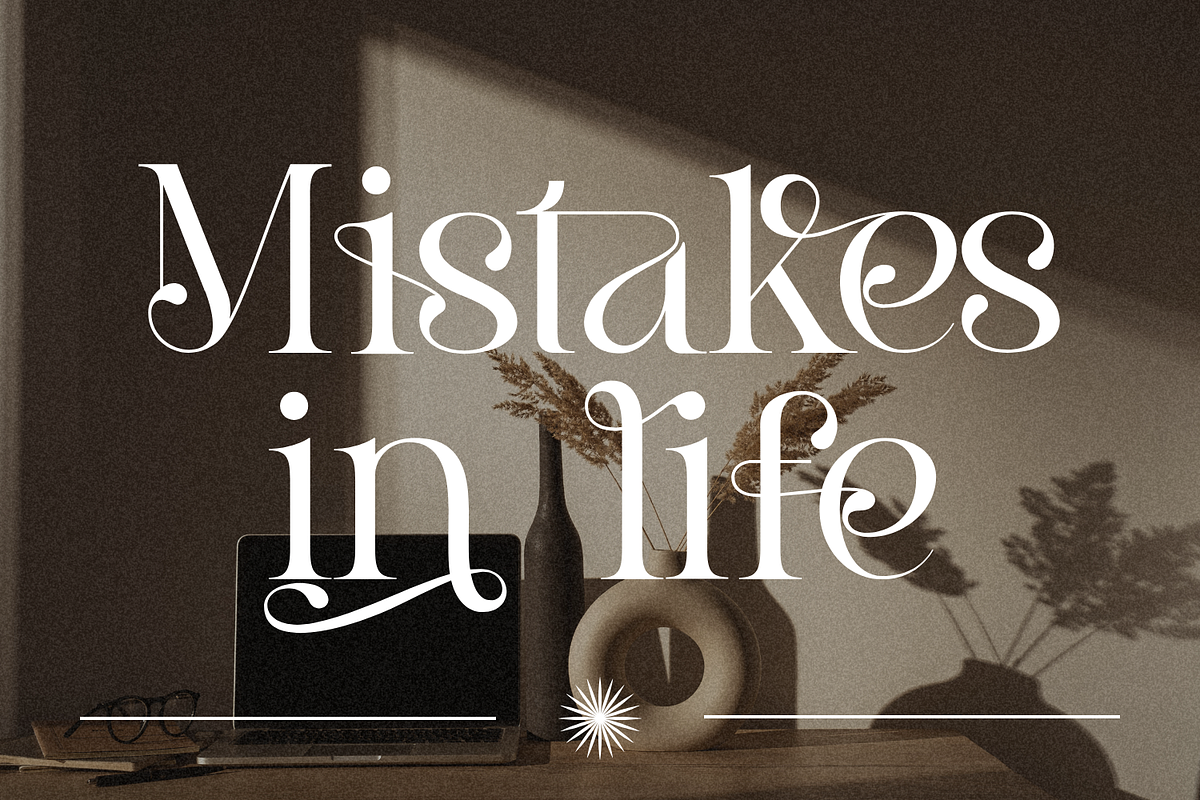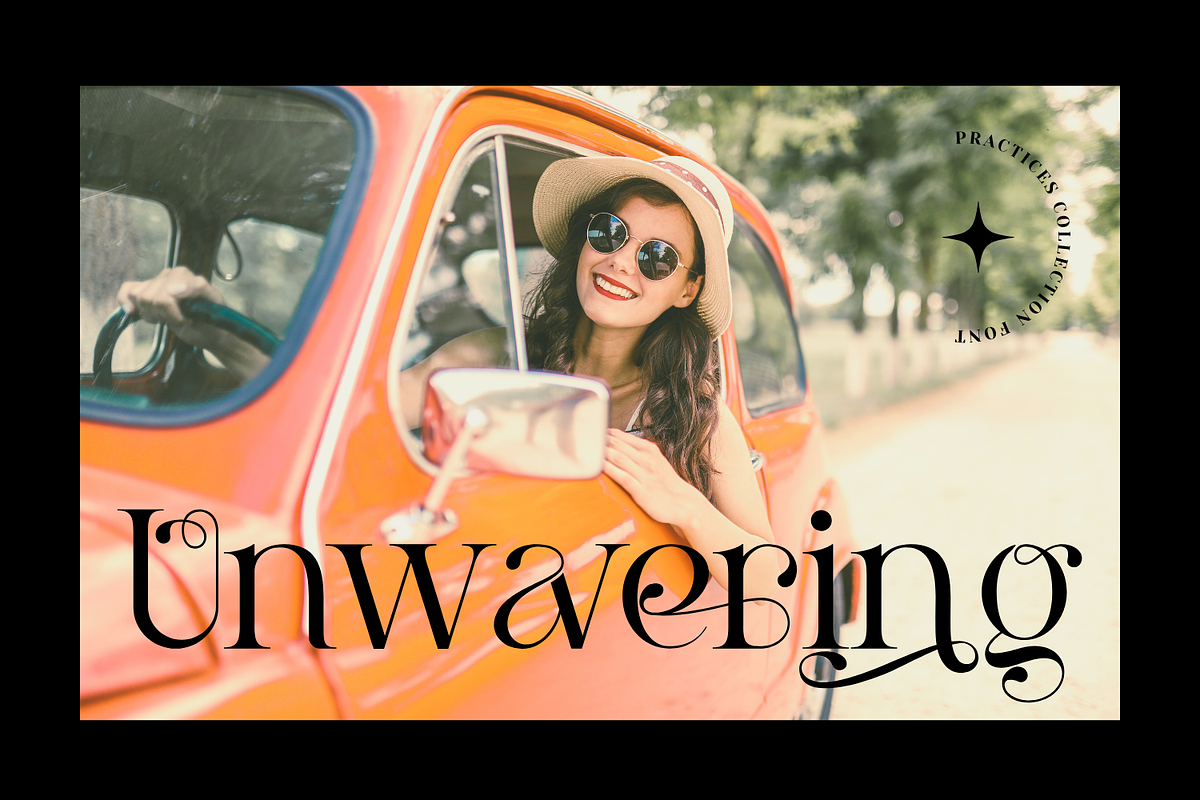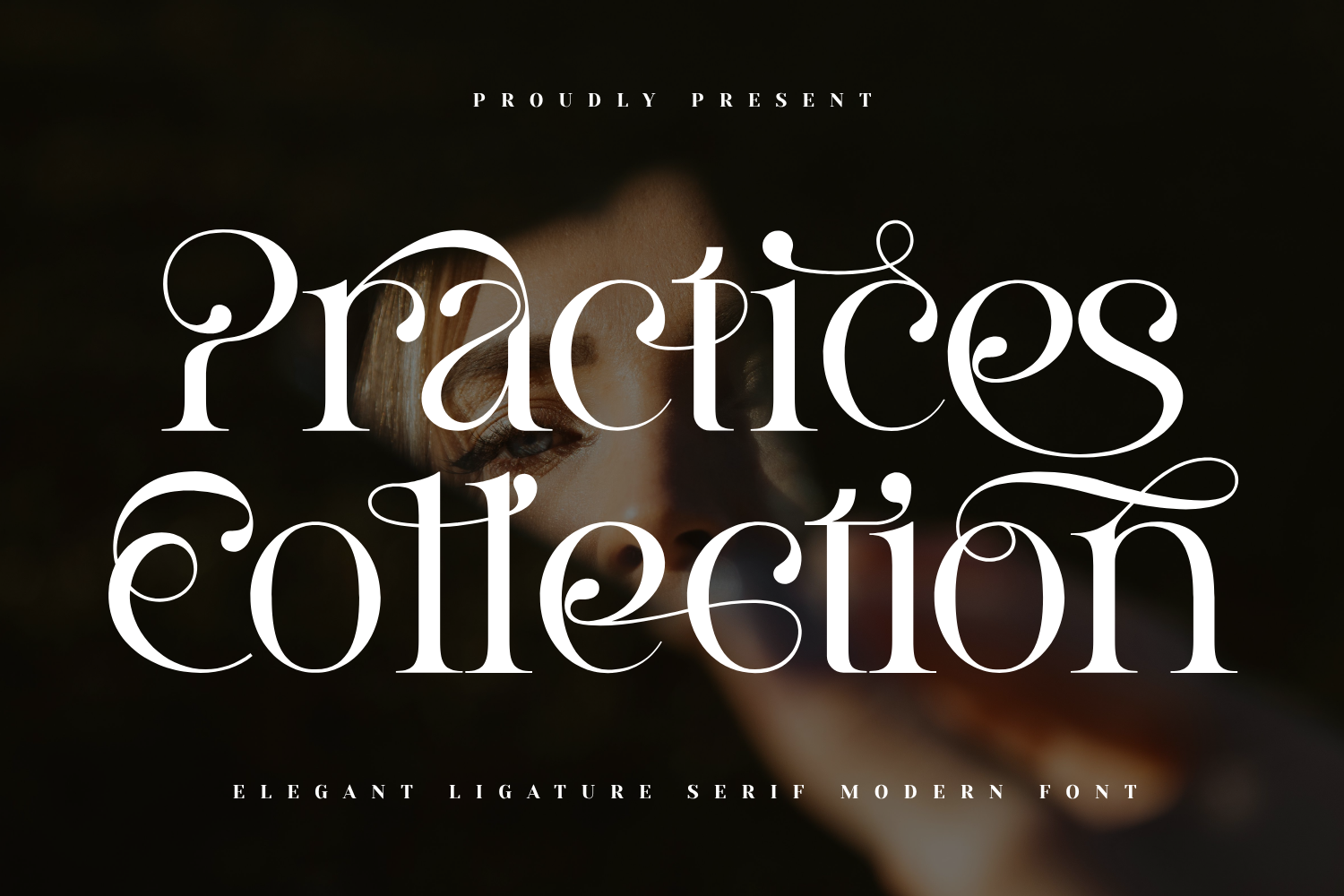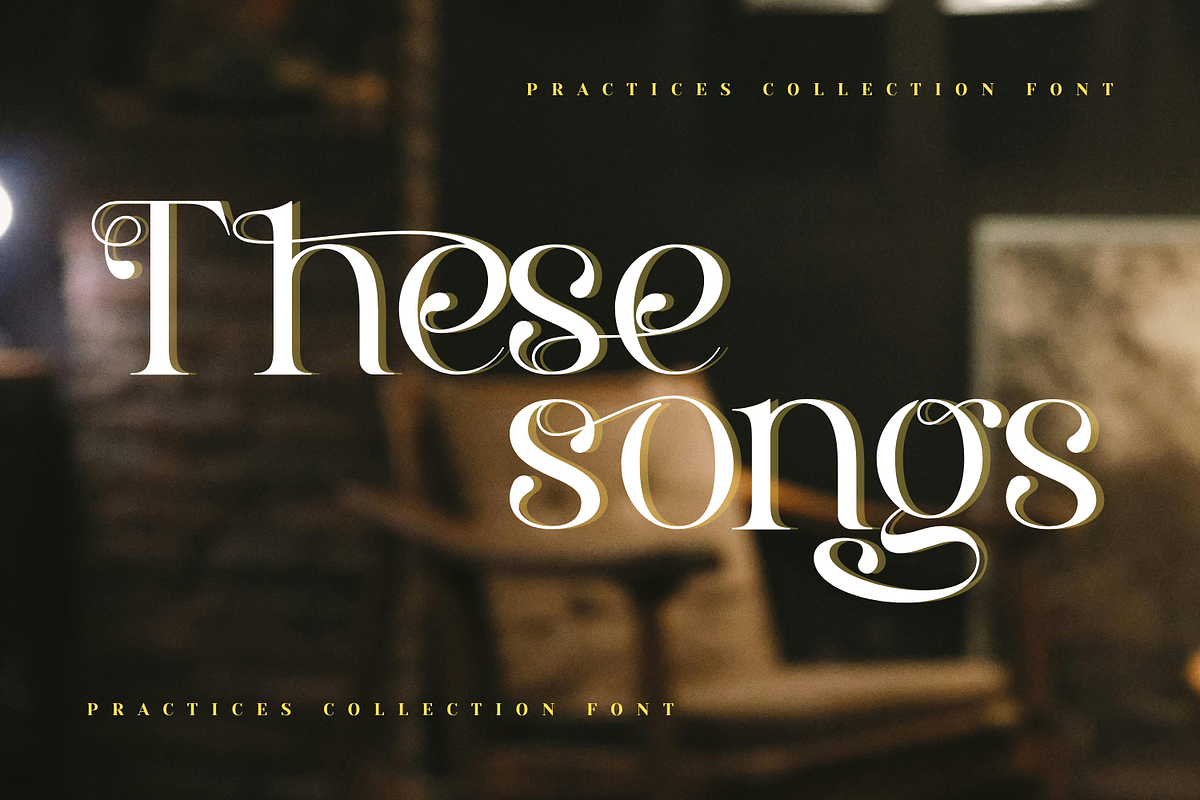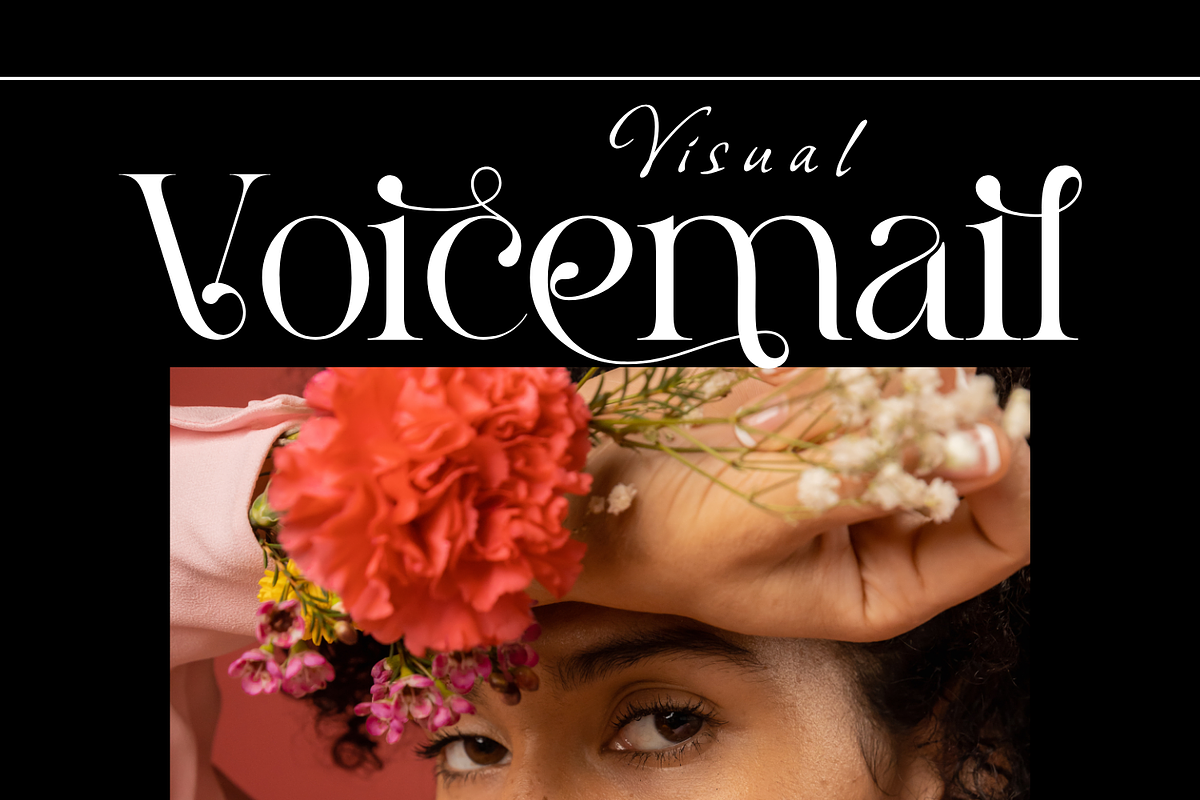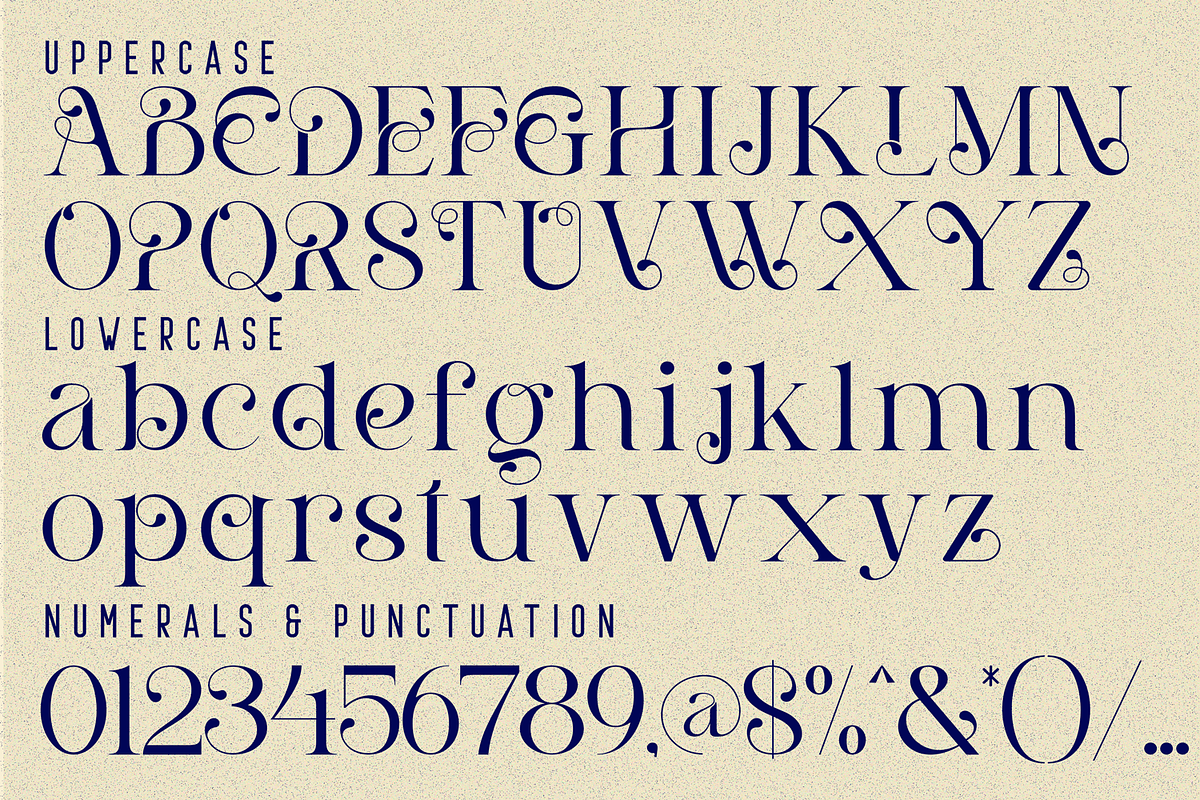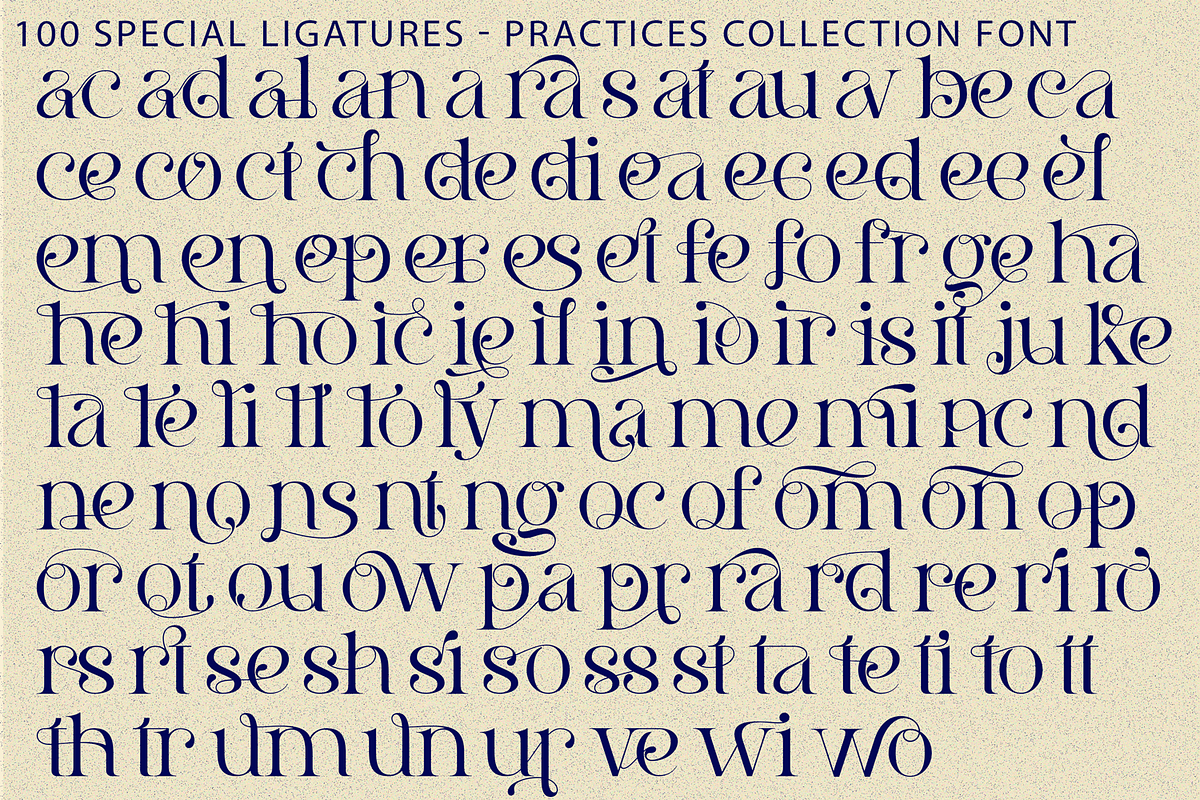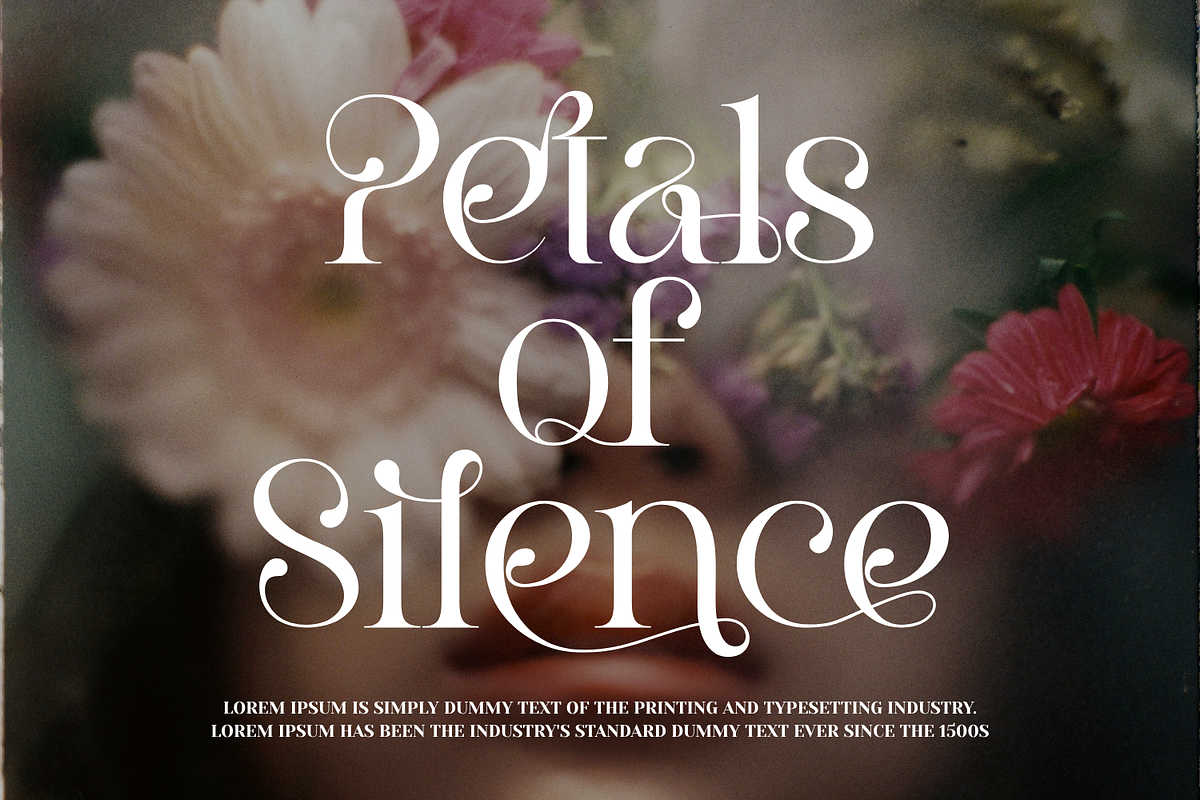
Practices Collection - Elegant Font
Practices Collection - Elegant Font is an elegant calligraphic serif display font designed with graceful curves, romantic swashes, and refined high-contrast letterforms. Its flowing details and decorative ligatures create a soft, luxurious rhythm that brings sophistication and emotion to every word. Perfect for wedding invitations, fashion branding, beauty packaging, perfume labels, editorial headlines, boutique logos, and premium visual identities, Practices Collection offers a timeless balance between classic serif elegance and expressive calligraphic charm.
🔤Features:
Uppercase & Lowercase Letters
Around 100 Special Ligatures & Alternates
Accented Characters for multilingual support
🔤About 100 ligatures combined with Stylistic Alternates Font:
ac ad al an ar as at au av be ca ce ch co ct de di ea ec ed ee el em en ep er es et fe fo fr ge ha he hi ho ie ic il in io ir is it ju ke la le li ll lo ly ma me mi nc nd ne ng no nt ns oc of om on oo op or ot ou ow pa pr ra rd re ri ro rs rt se sh si so ss st ta te th ti to tr tt um un ur ve wi wo